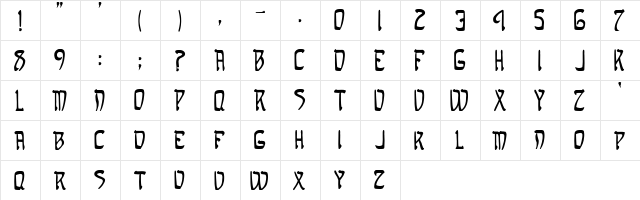
Samaritan Regular
Design Context for Samaritan Typeface
Samaritan is a composed and adaptable typeface that performs quietly and consistently across a wide range of design contexts.